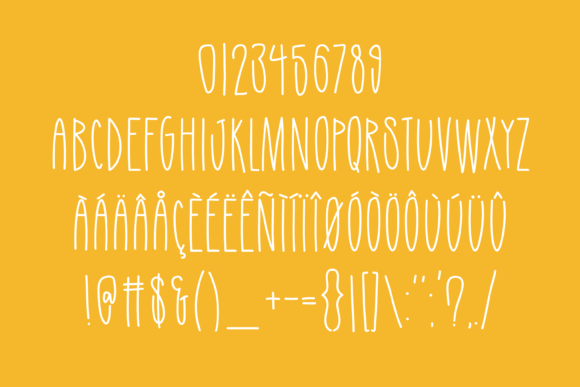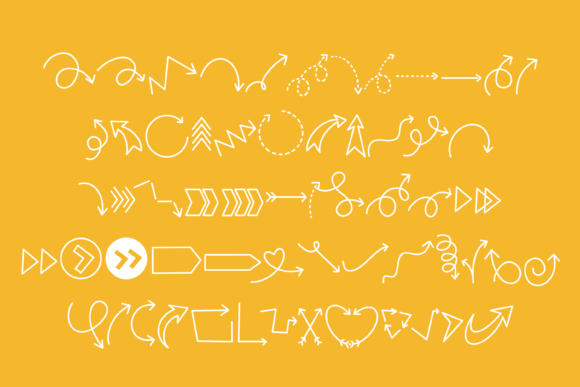
Introducing Arrowmoon Font: The Ultimate Hand-Drawn Delight for Creative Projects
Are you tired of using the same old fonts for your creative projects? Do you want to add a touch of whimsy and personality to your designs? Look no further than Arrowmoon Font, a delightful, hand-drawn font that’s sure to bring a smile to your face. With its playful, elongated letters and charmingly imperfect lines, Arrowmoon Font is the perfect addition to any project that needs a bit of flair.
The Characteristics of Arrowmoon Font
So, what makes Arrowmoon Font so special? For starters, it’s a hand-drawn font, which means that each letter has its own unique character and charm. The lines are imperfect, the curves are playful, and the overall effect is one of effortless, homemade charm. The letters are also elongated, which gives the font a tall, quirky feel that’s perfect for headlines, titles, and other design elements.
Another key feature of Arrowmoon Font is its personality. This font is not just a collection of letters – it’s a way to add attitude and style to your designs. Whether you’re creating posters, greeting cards, or social media graphics, Arrowmoon Font is the perfect way to add a bit of whimsy and fun to your work.
Uses for Arrowmoon Font
So, what can you use Arrowmoon Font for? The possibilities are endless! Here are a few ideas to get you started:
- Posters and Flyers: Add a playful touch to your posters and flyers with Arrowmoon Font. The font’s bold, elongated letters are perfect for grabbing attention and adding a bit of drama to your designs.
- Greeting Cards: Make your greeting cards stand out with Arrowmoon Font. The font’s charmingly imperfect lines and playful curves are perfect for adding a touch of personality to your cards.
- Social Media Graphics: Add a bit of whimsy to your social media graphics with Arrowmoon Font. The font’s playful, hand-drawn feel is perfect for creating engaging, shareable content.
- Branding and Packaging: Use Arrowmoon Font to add a touch of personality to your branding and packaging. The font’s unique, hand-drawn feel is perfect for creating a memorable brand identity.
Why Designers and Crafters Love Arrowmoon Font
So, why do designers and crafters love Arrowmoon Font? Here are a few reasons:
- Unique and Eye-Catching: Arrowmoon Font is a one-of-a-kind font that’s sure to grab attention. Its playful, elongated letters and charmingly imperfect lines make it a standout in any design.
- Easy to Use: Arrowmoon Font is easy to use, even for designers who are new to hand-drawn fonts. The font is clean and legible, making it perfect for a wide range of design projects.
- Versatile: Arrowmoon Font is a versatile font that can be used for a wide range of design projects. Whether you’re creating posters, greeting cards, or social media graphics, Arrowmoon Font is the perfect choice.
Tips for Using Arrowmoon Font
Here are a few tips for using Arrowmoon Font in your designs:
- Use it for Headlines: Arrowmoon Font is perfect for headlines and titles. Use it to add a touch of personality to your designs and grab attention.
- Experiment with Colors: Arrowmoon Font looks great in a wide range of colors. Experiment with different colors and combinations to find the perfect look for your design.
- Pair it with Other Fonts: Arrowmoon Font pairs well with a wide range of other fonts. Try pairing it with a clean, sans-serif font for a bold, contrasting look.
| Author | kitaleigh |
Arrowmoon Font is a delightful, hand-drawn font that’s perfect for adding a touch of whimsy and personality to your creative projects. With its playful, elongated letters and charmingly imperfect lines, this font is sure to bring a smile to your face. Whether you’re a designer, crafter, or simply someone who loves to create, Arrowmoon Font is the perfect addition to your toolkit. So why wait? Download Arrowmoon Font today and start adding a bit of personality to your designs!